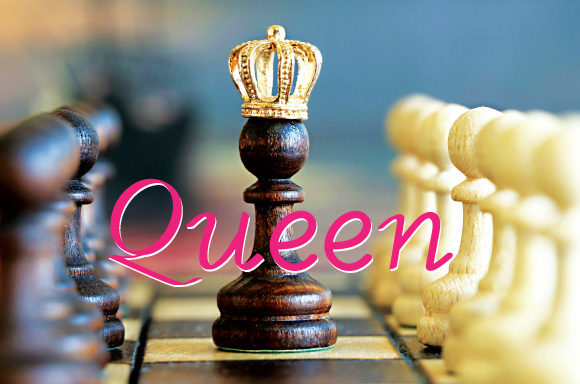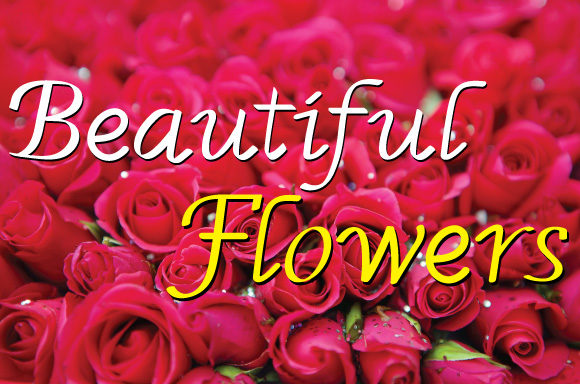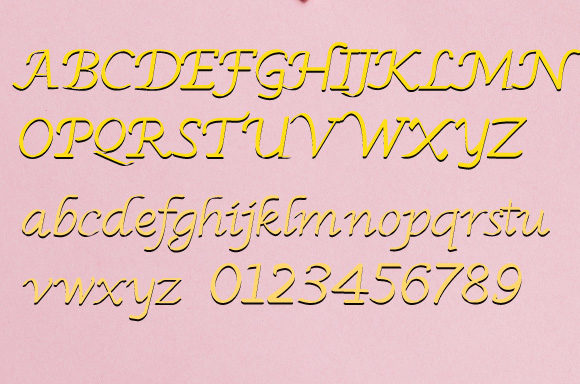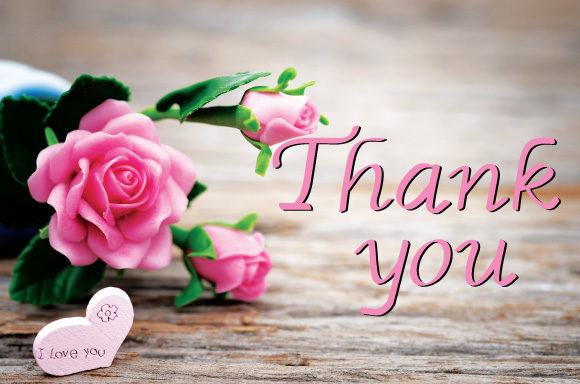
About Rosella Font
Rosella is a stylish and modern handwritten font that is suitable for branding, signature, wedding invitation, promotion, product packaging, and other needs. This stunning handwritten font is a beautiful homage to classic calligraphy. It will elevate a wide range of design projects to the highest level.